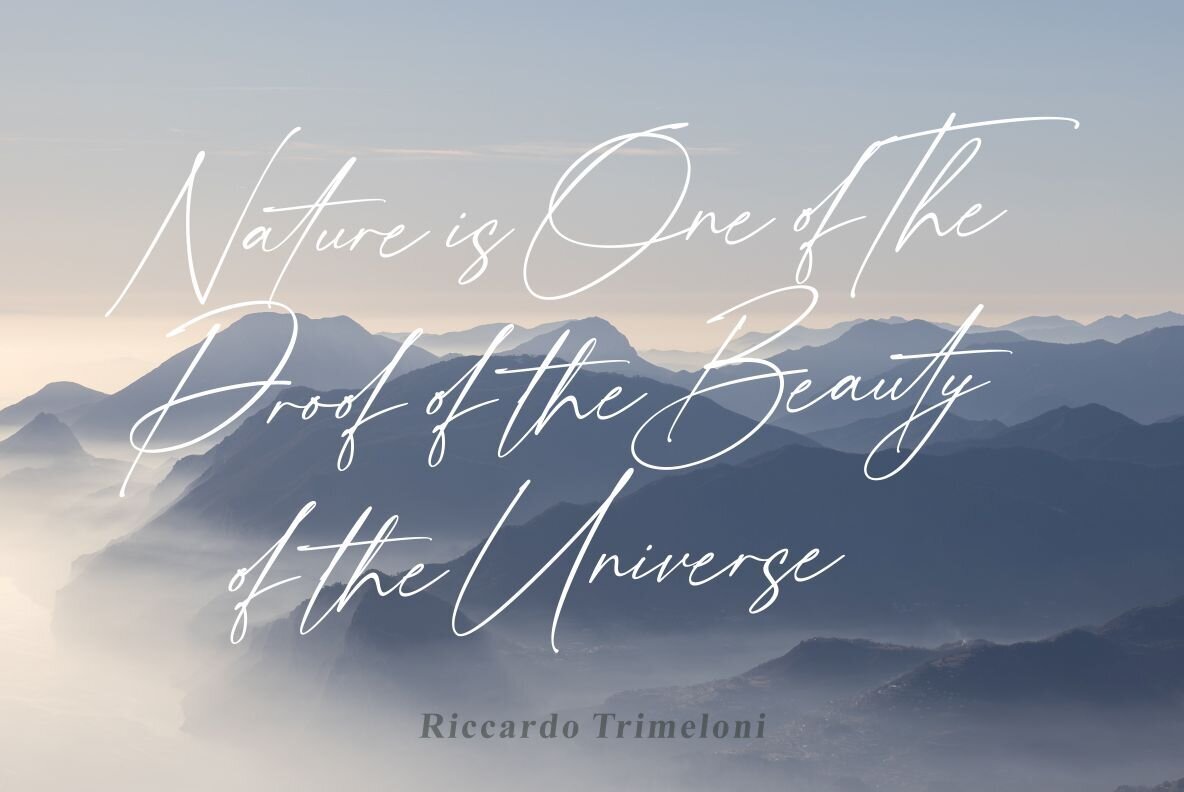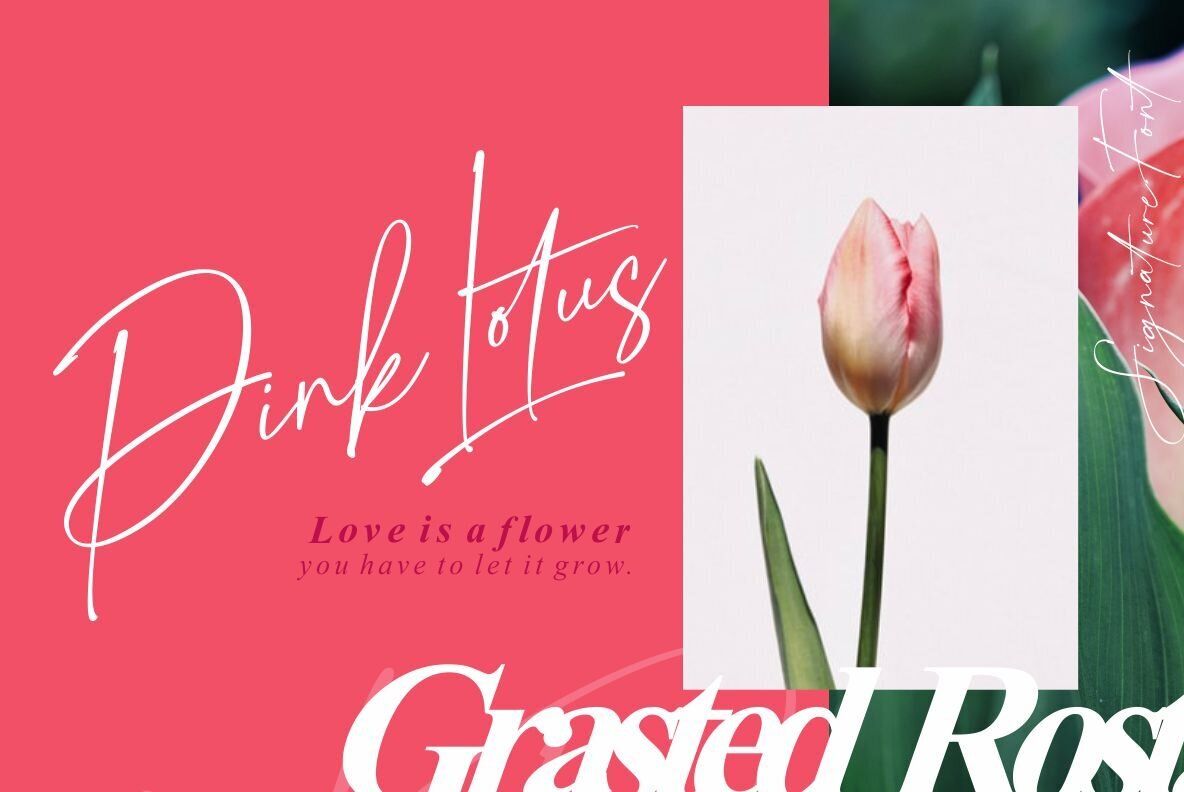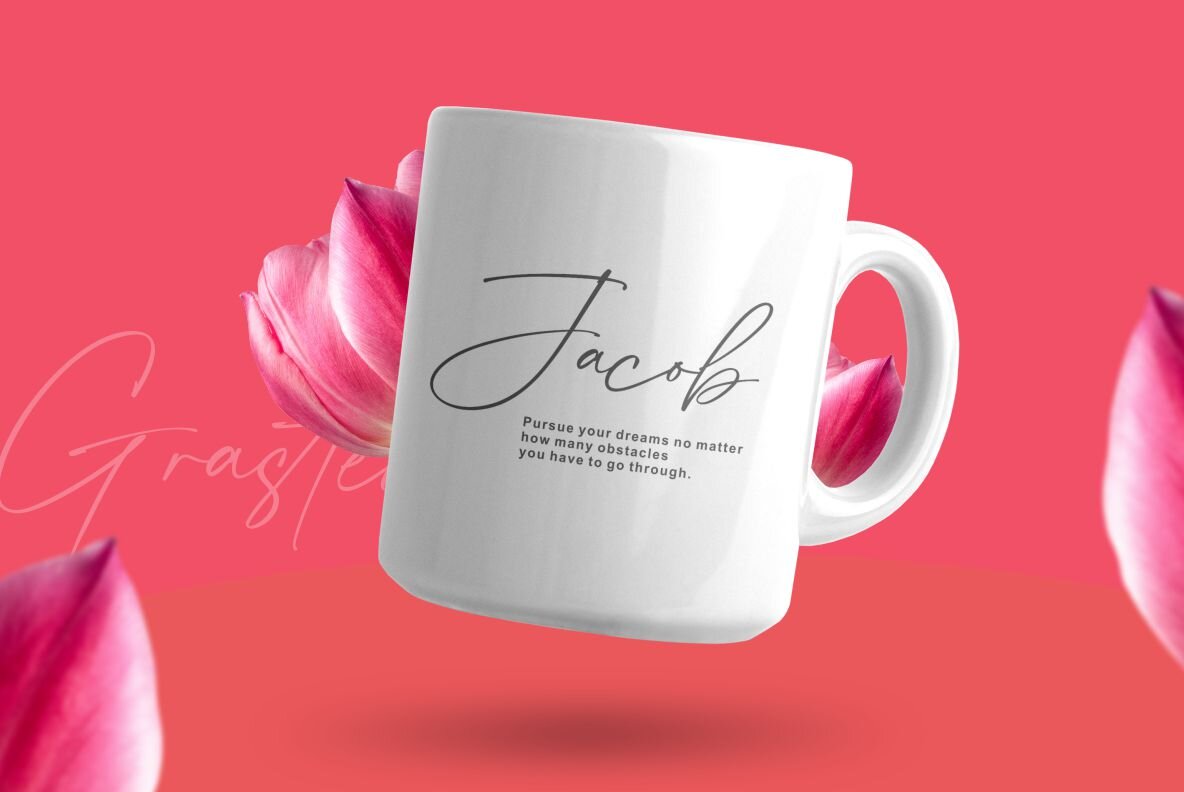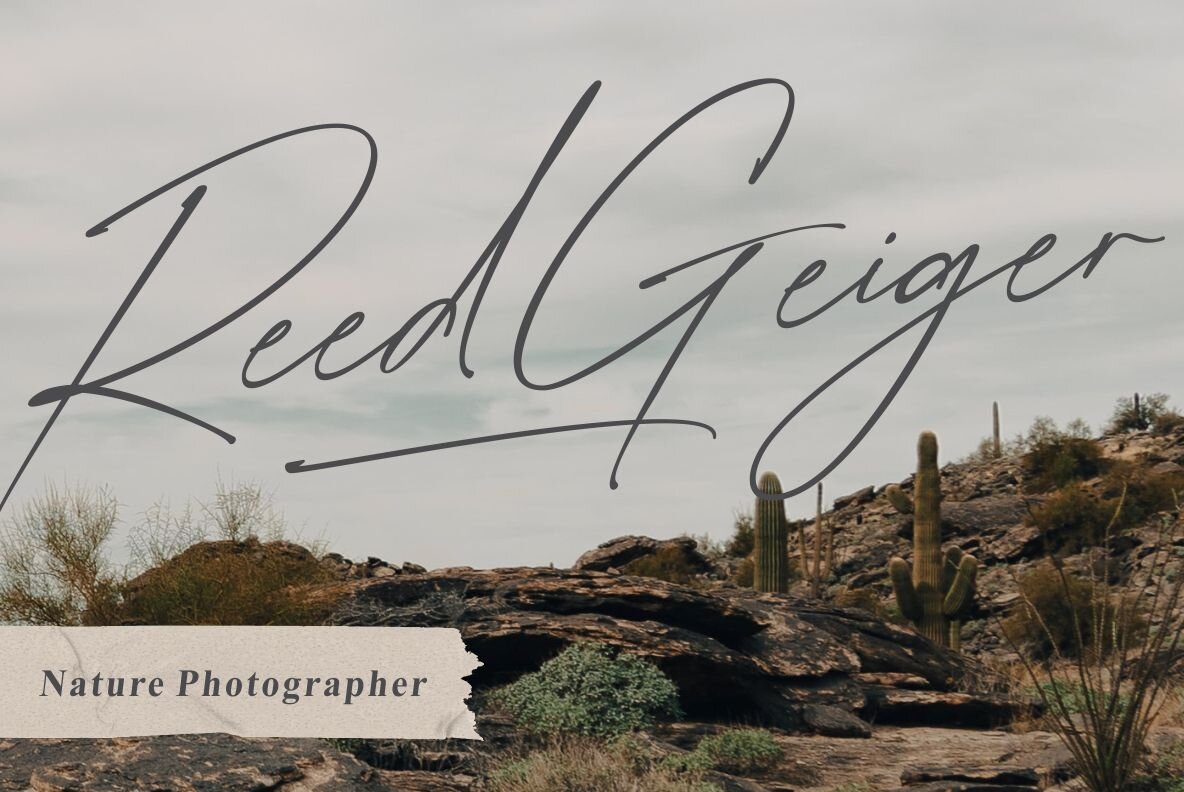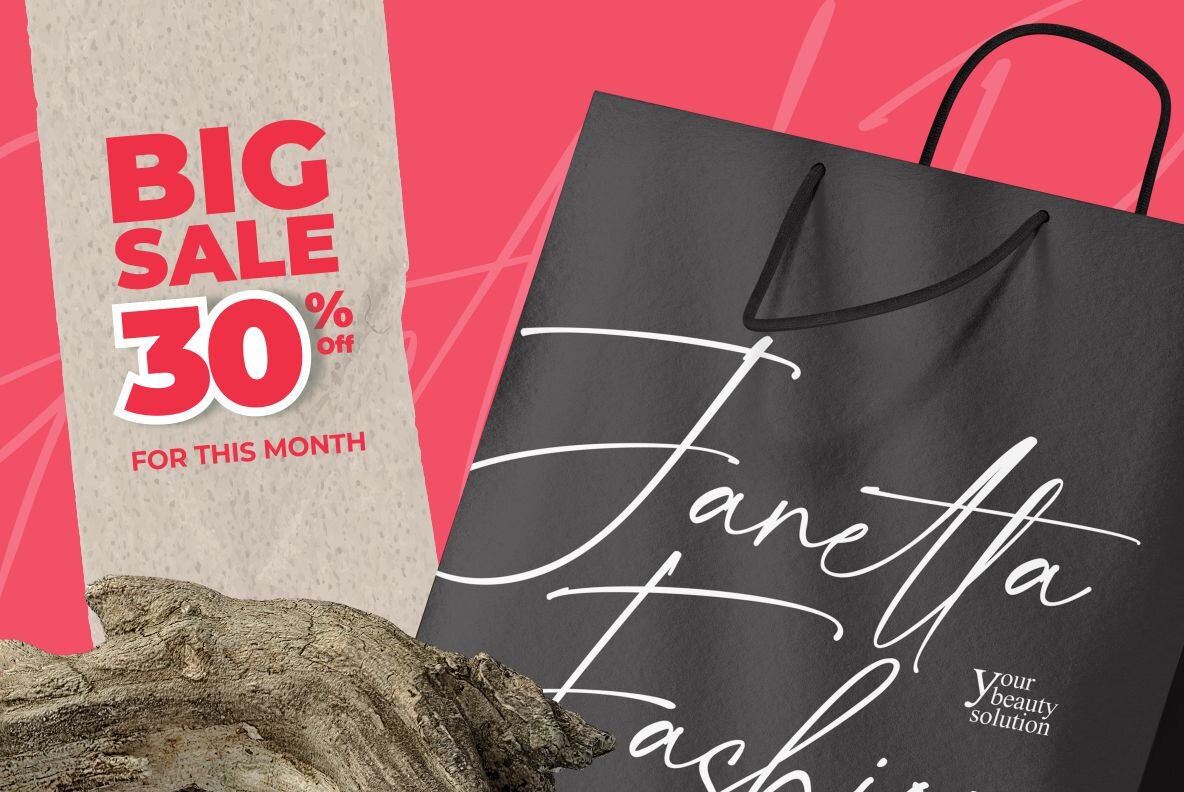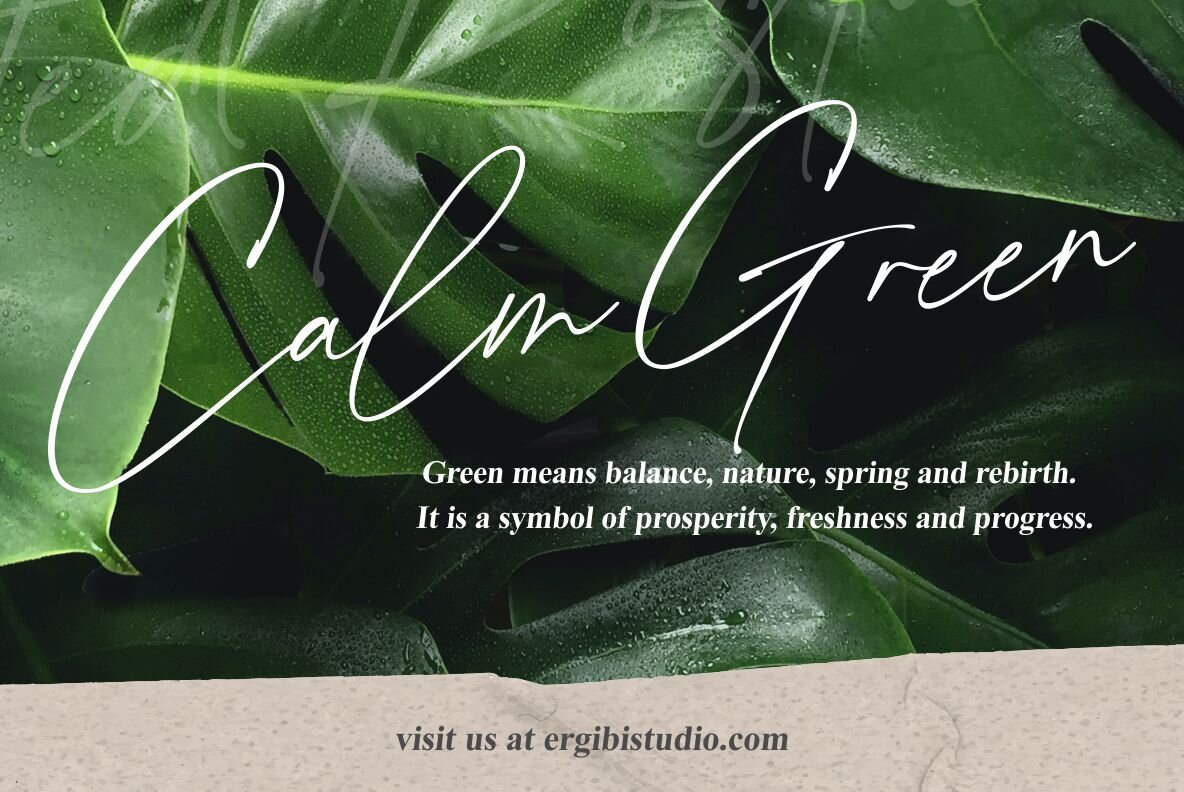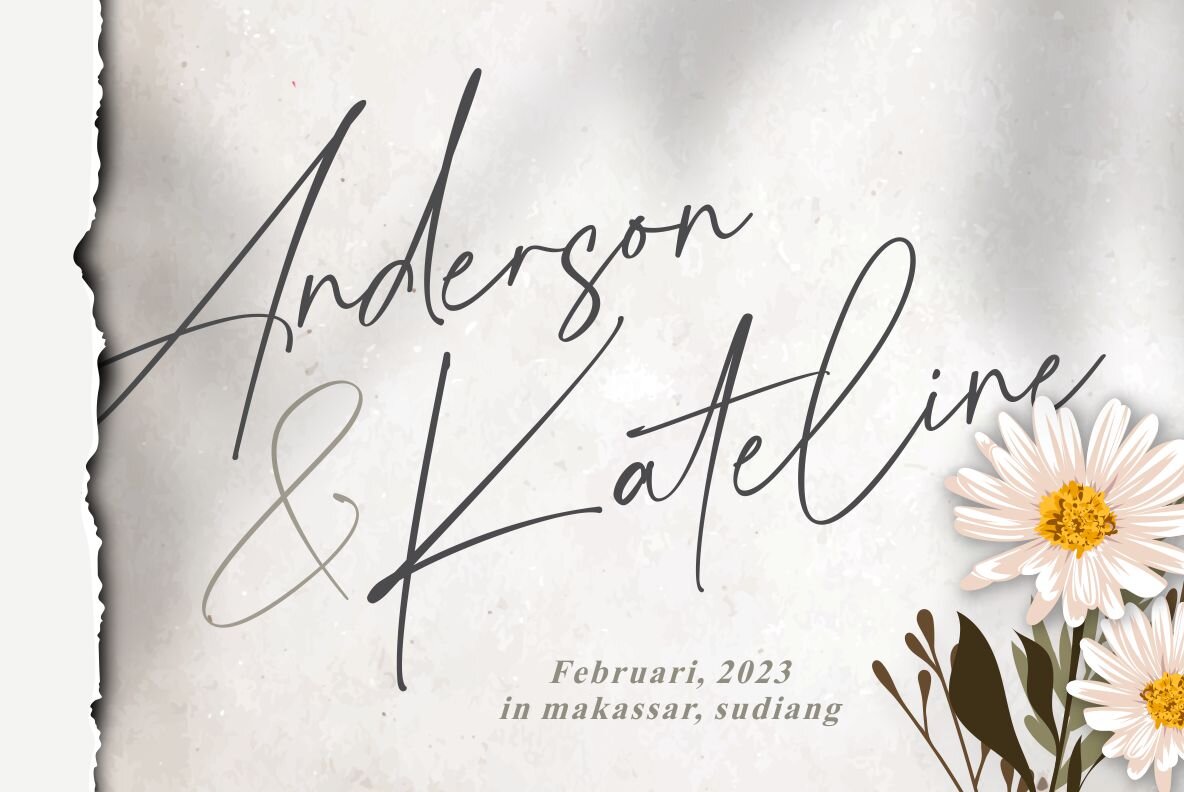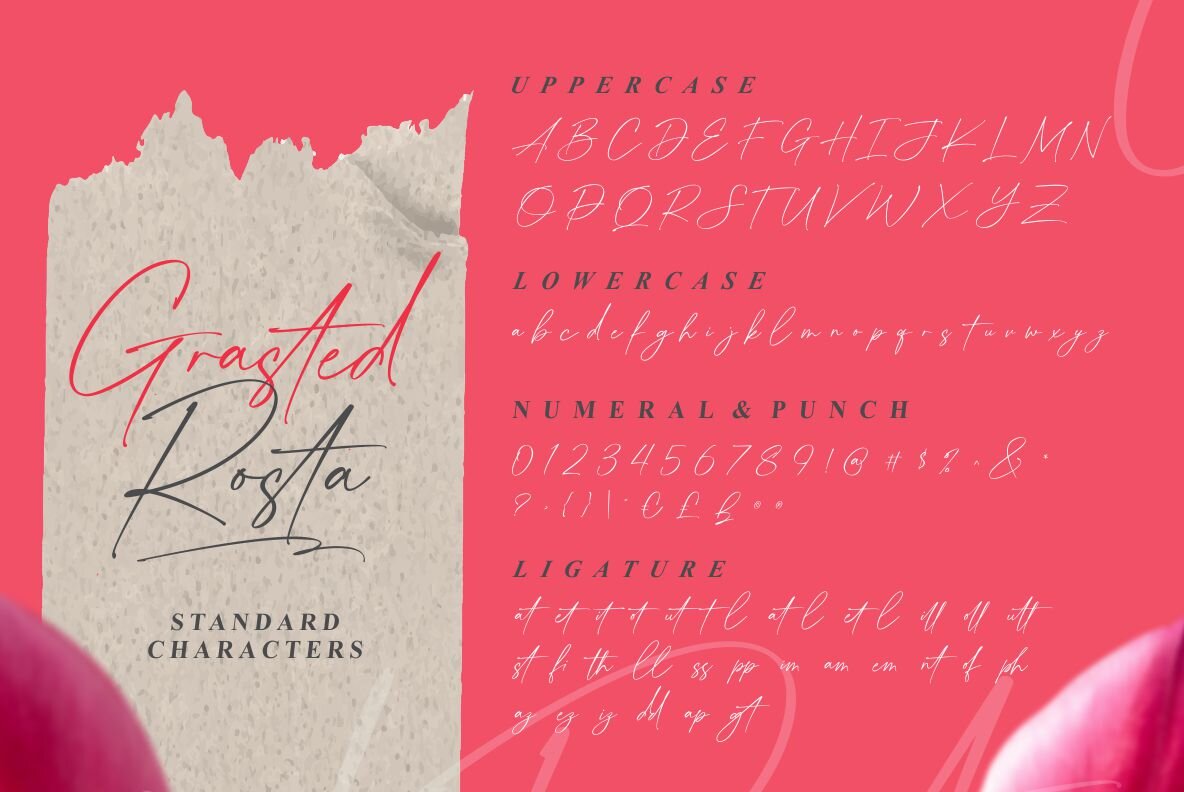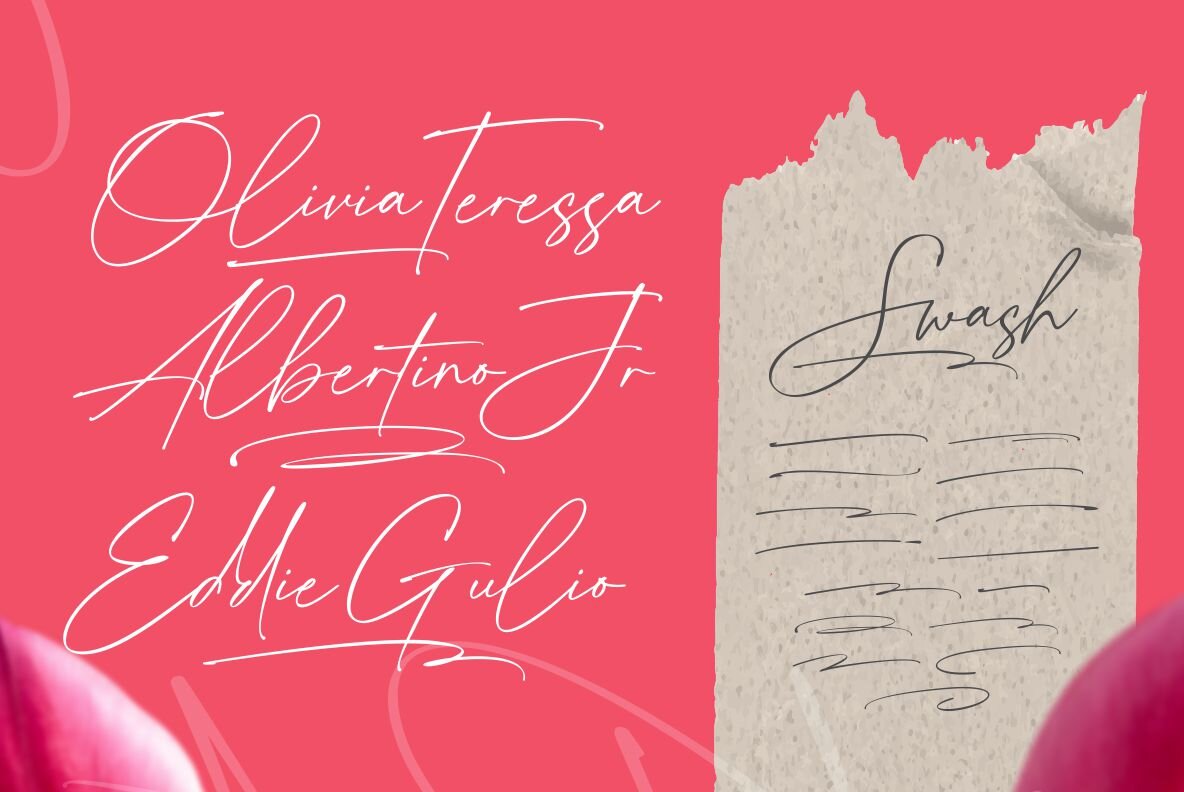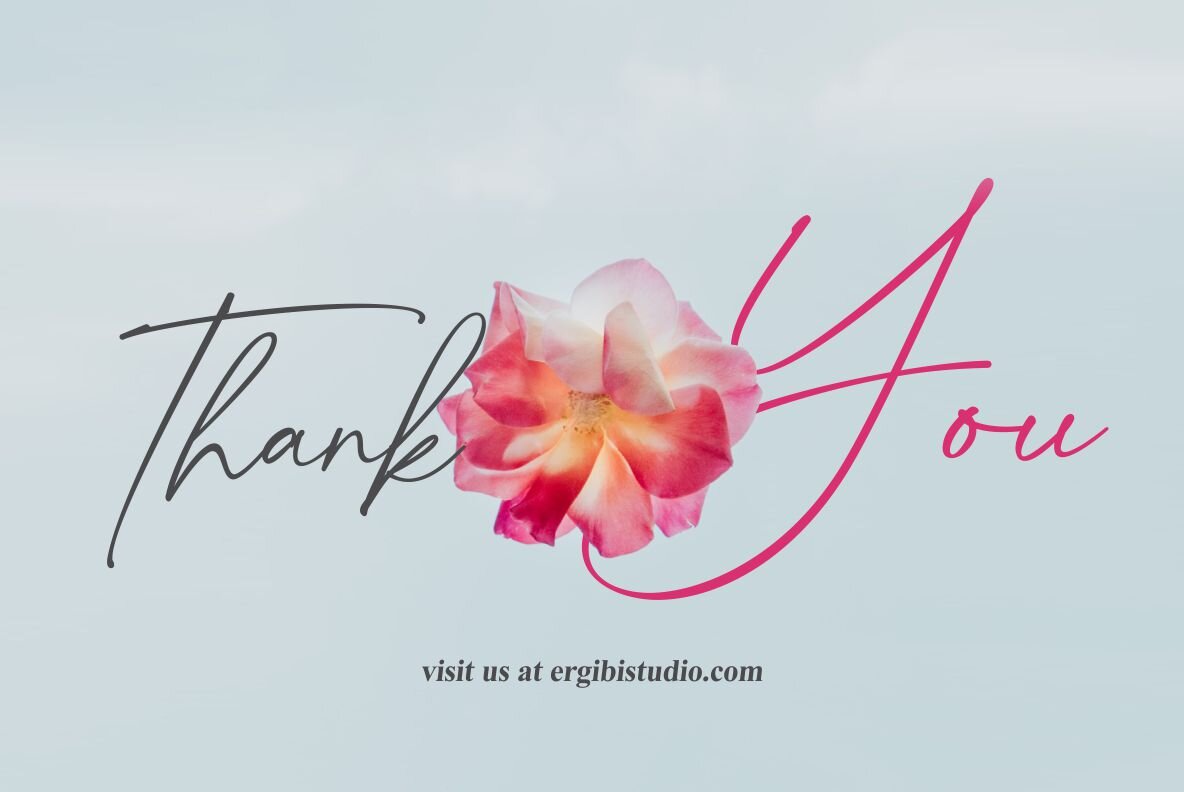
Grasted Rosta Font
Grasted Rosta by Ergibi Studio encapsulates modern elegance, making it an impeccable choice for diverse creative projects. This signature font is tailored for branding, photography, and invitations, lending sophistication to each application. Its unique charm is equally at home in product designs, social media, and stationery, capturing expressive aesthetics across various media.Grasted Rosta: Elegant Handcrafted Signature Font